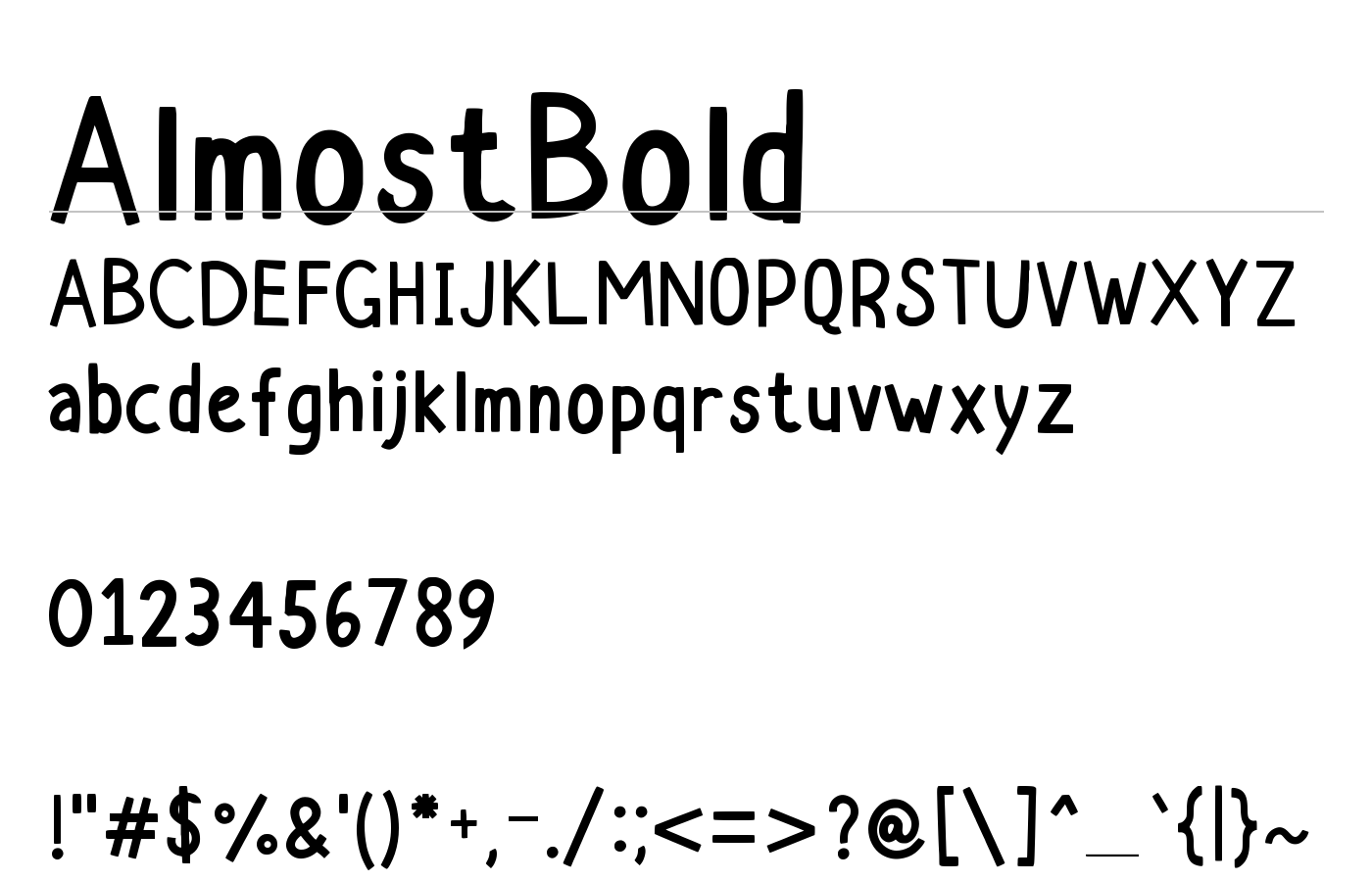
AlmostBold is a quirky, sans serif font with a playful and informal feel, featuring a relatively bold weight and upright, slightly uneven letterforms that evoke a hand-drawn style. Its tall x-height, distinct single-story characters, and tight spacing make it highly readable and perfect for fun, casual branding, children's materials, or creative headlines where a friendly, approachable vibe is desired. This font works well in designs that need personality and charm without sacrificing clarity.
AlmostBold Font